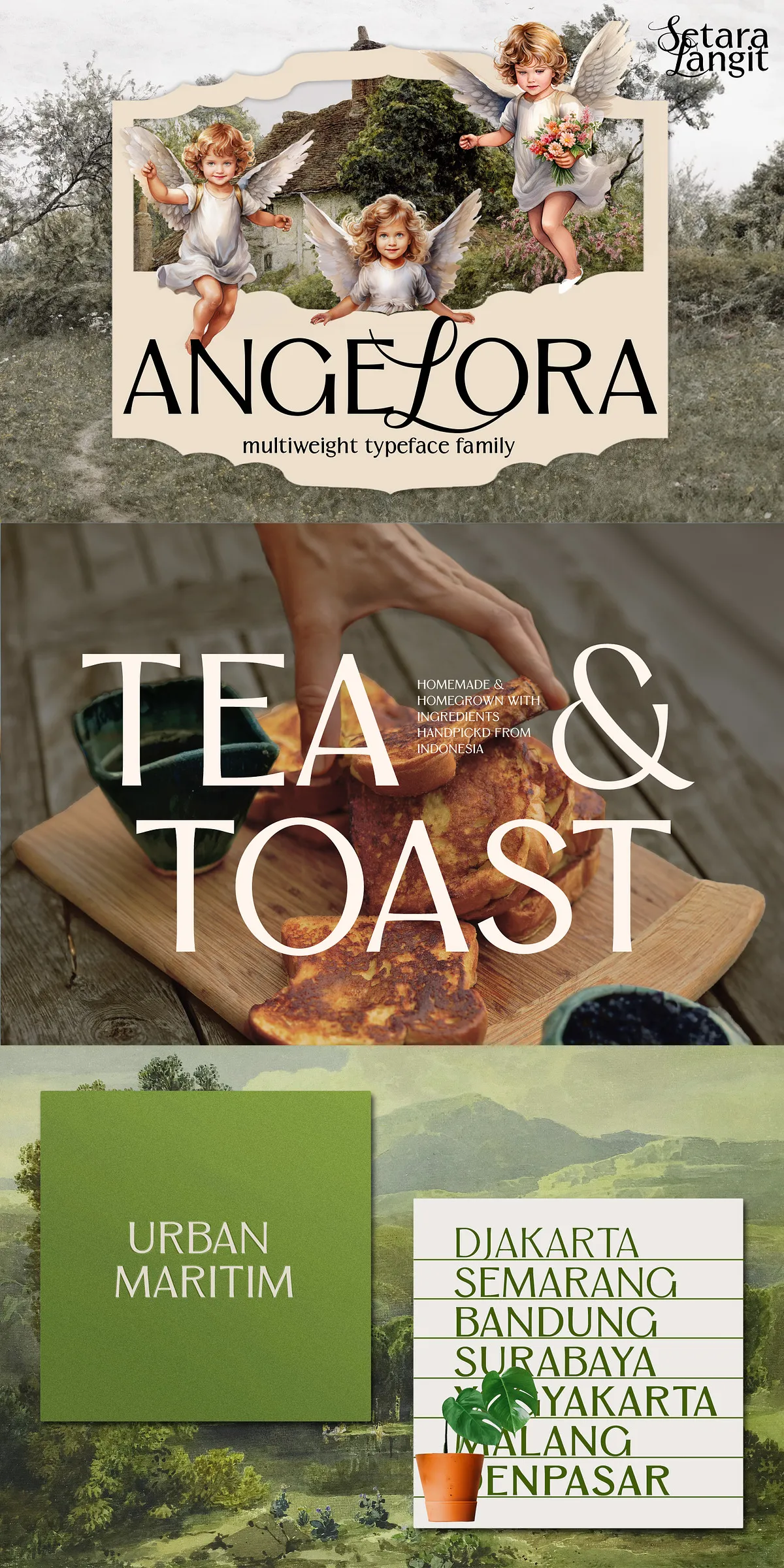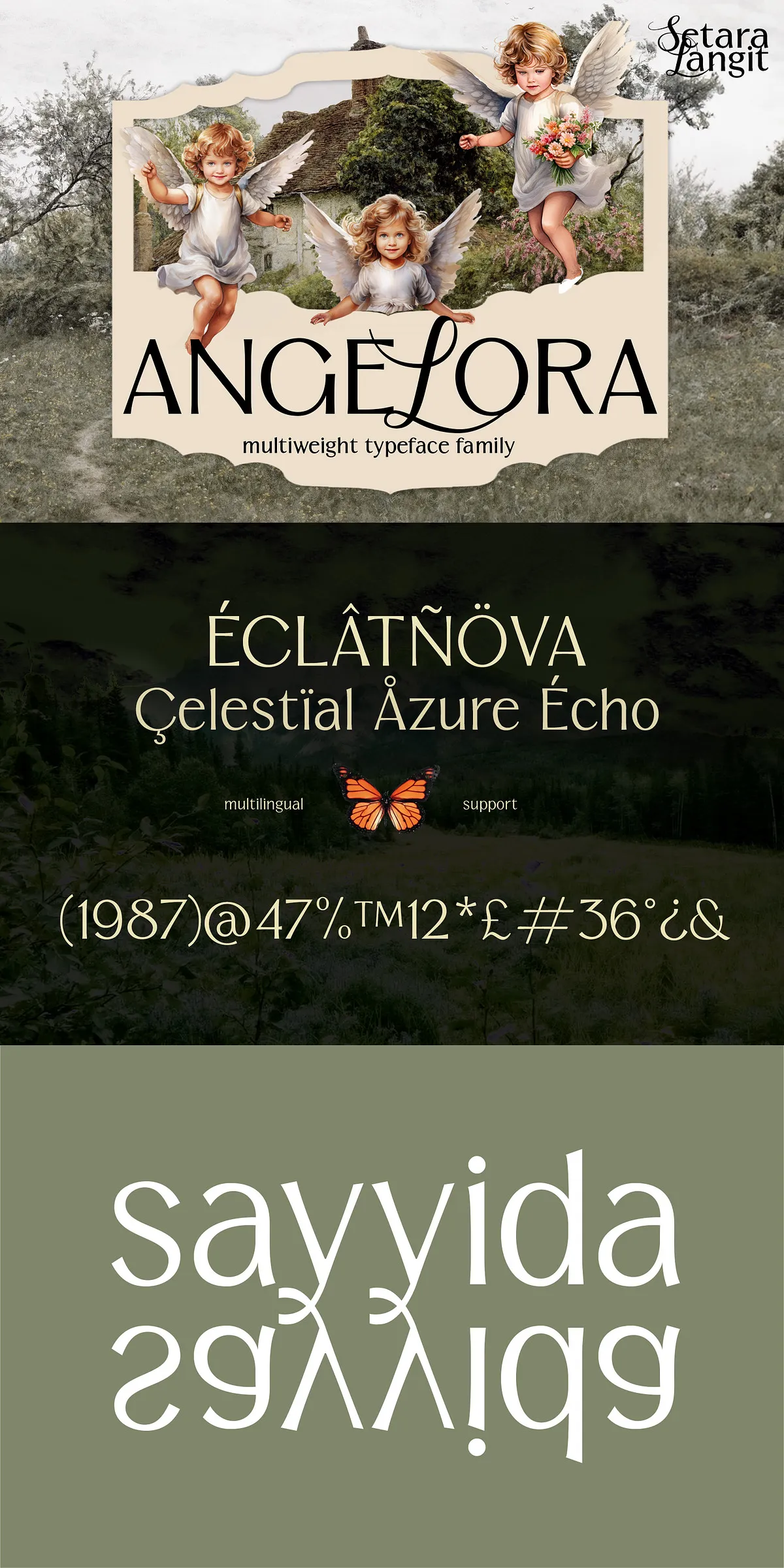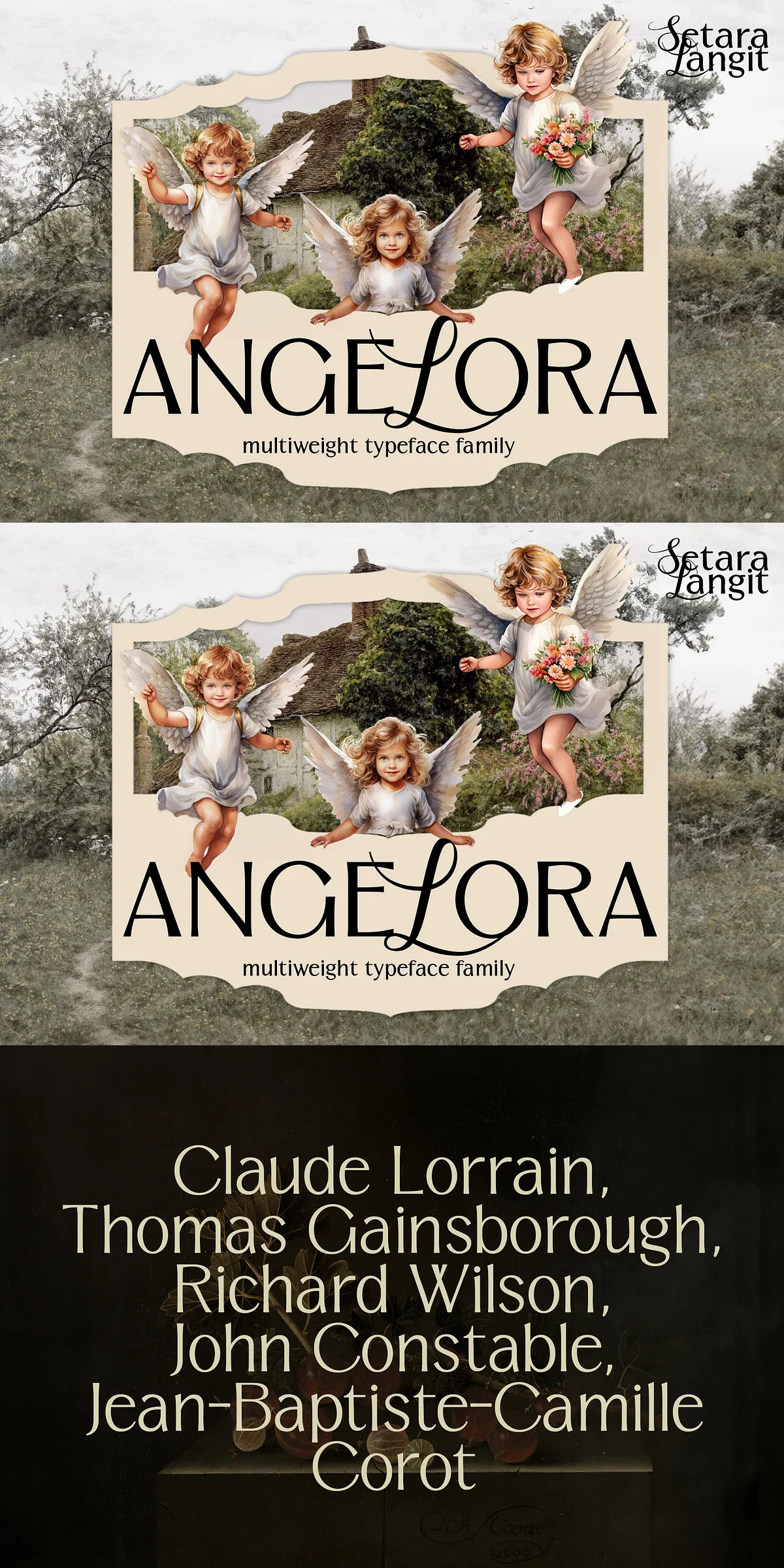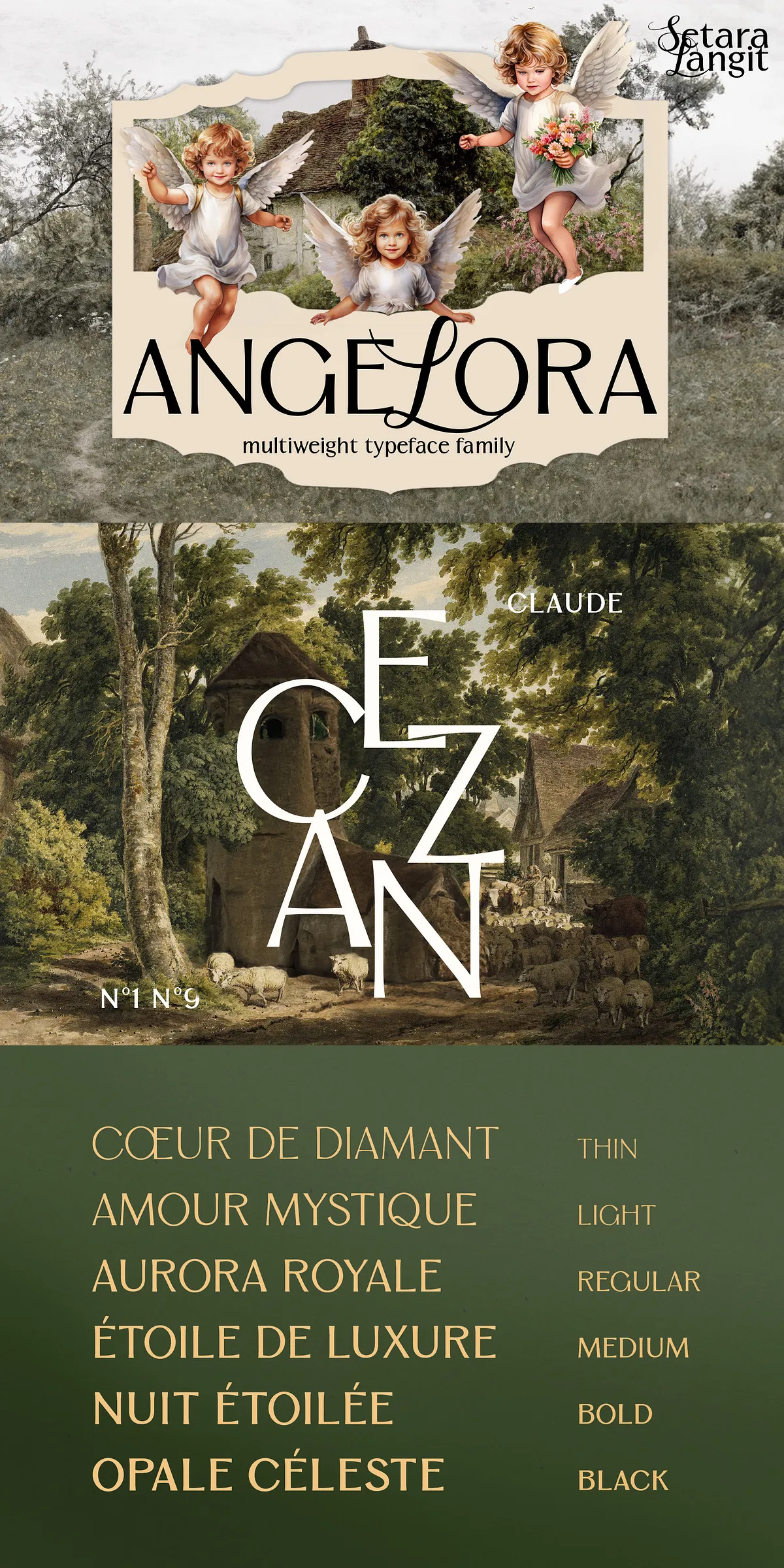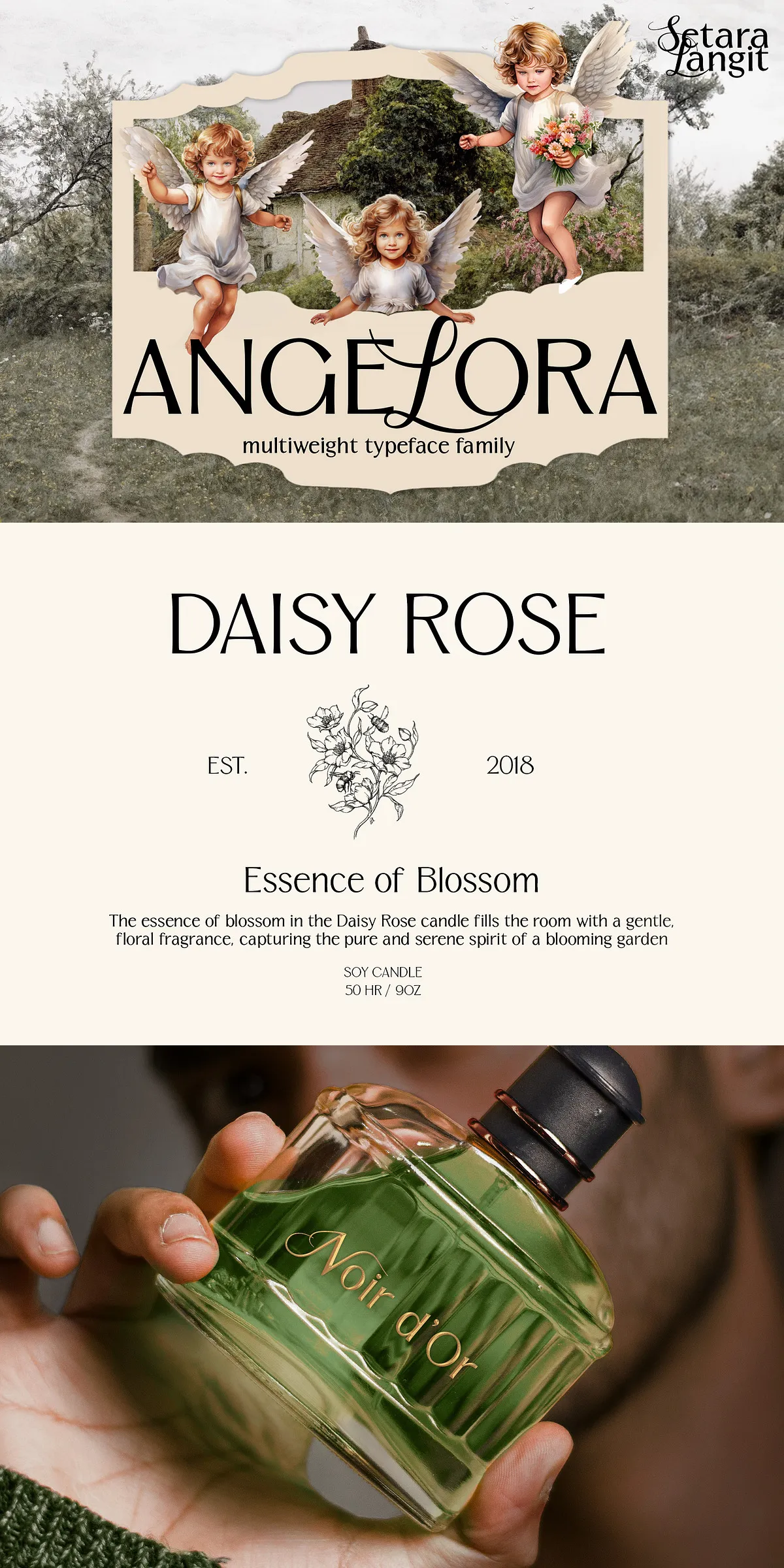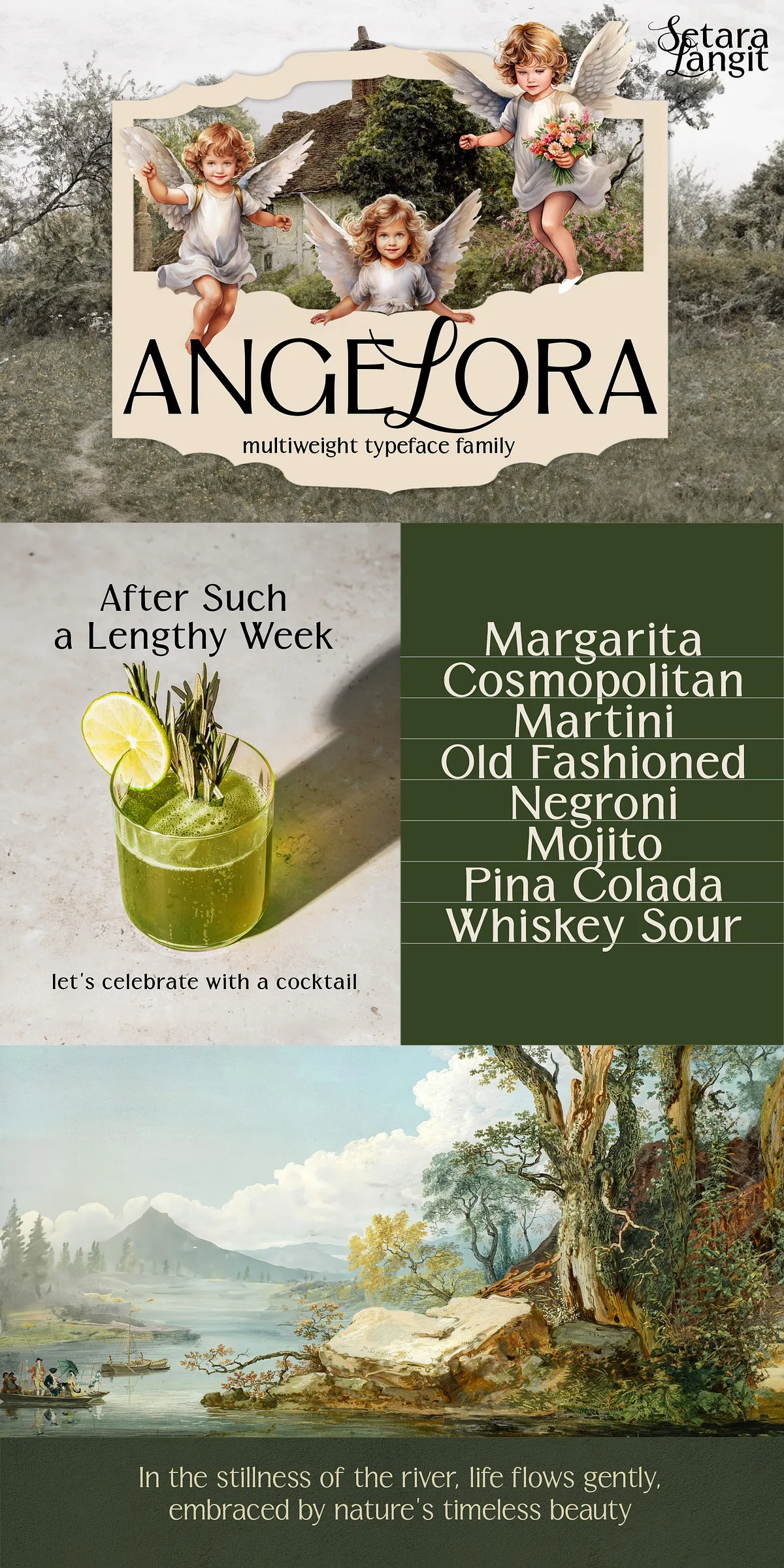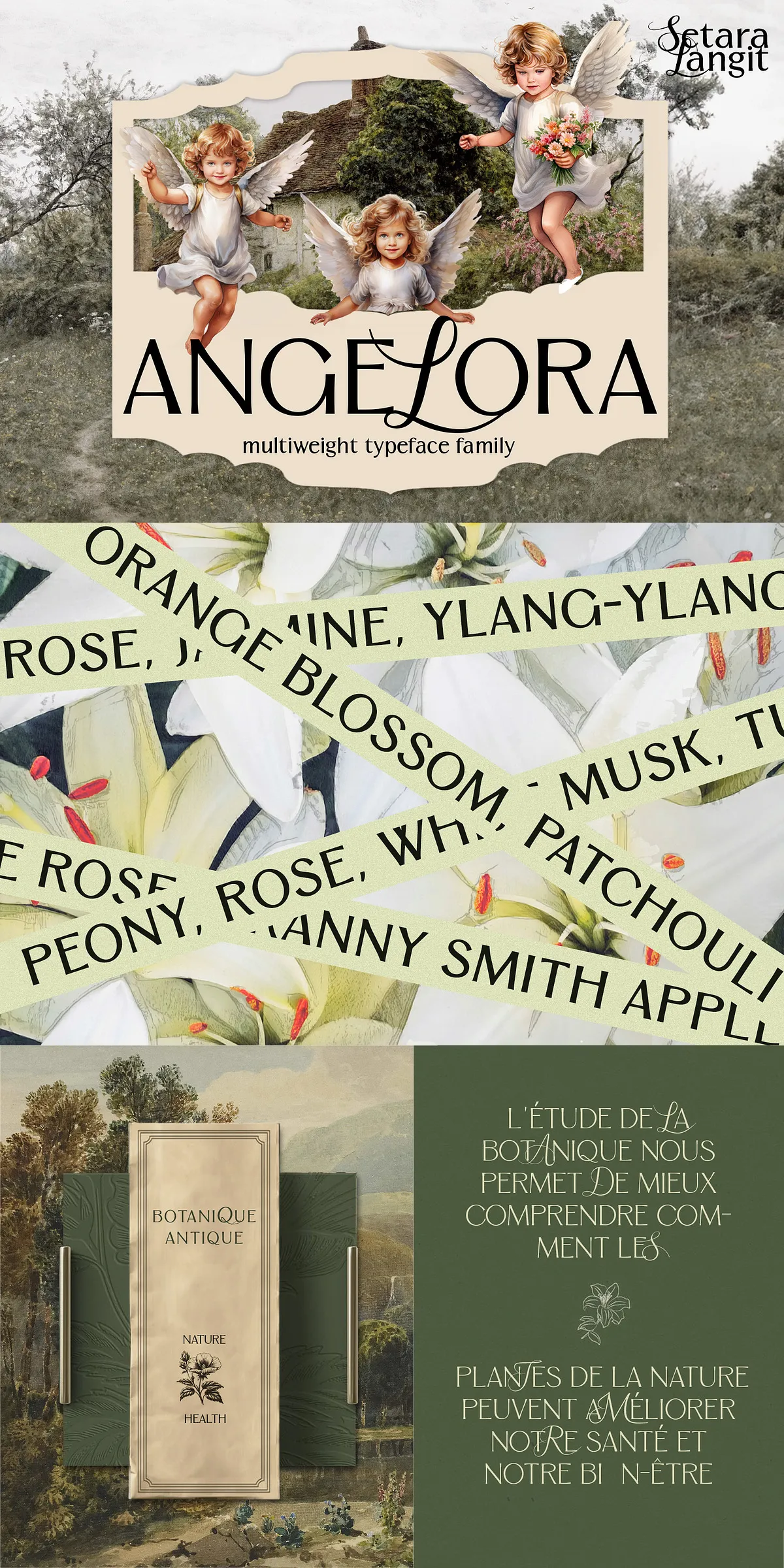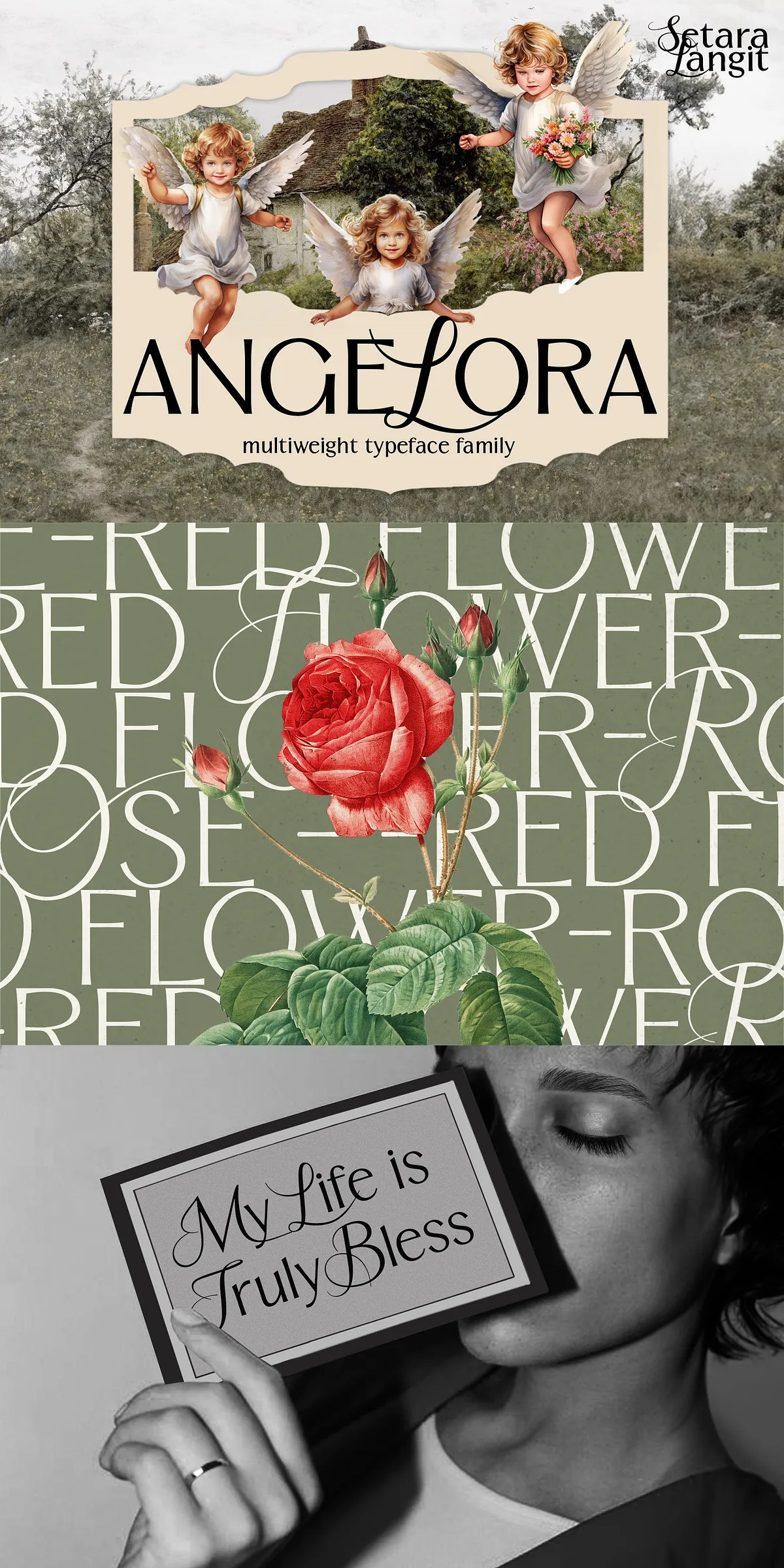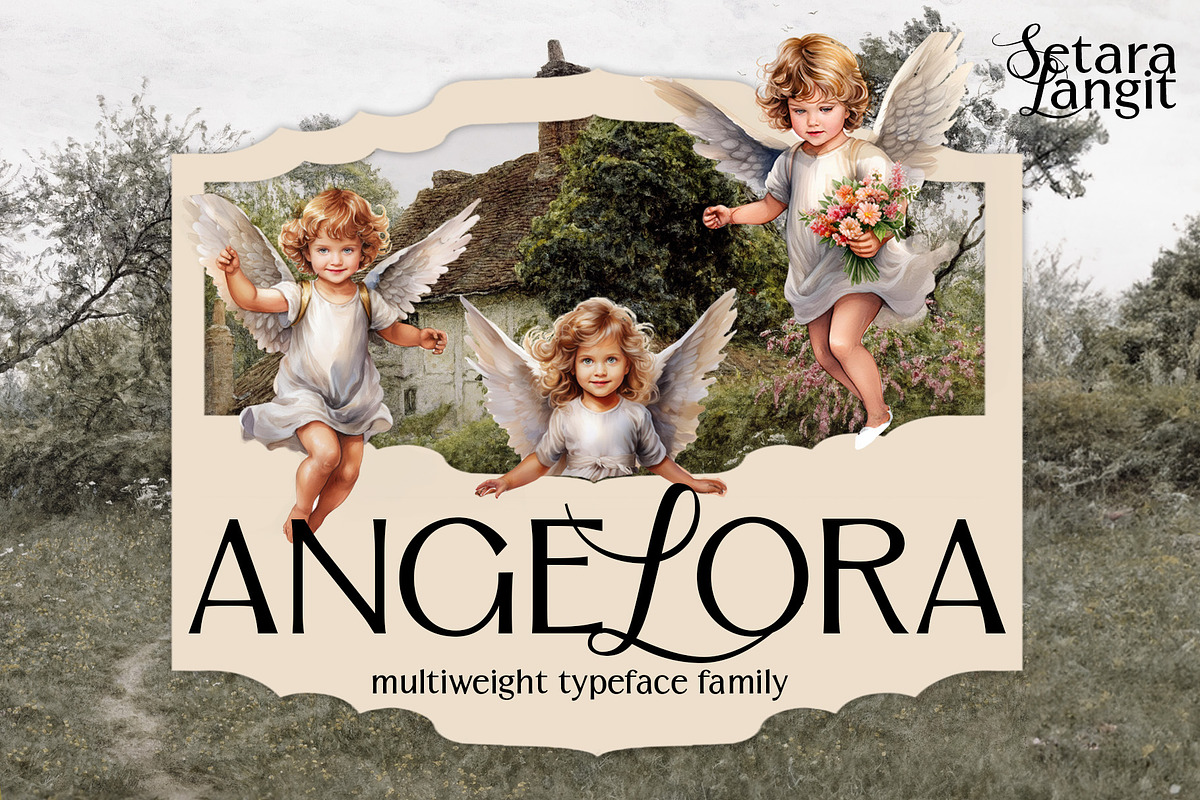
Angelora Typeface
Angelora, crafted masterfully by Setara Langit Creative Studio, represents the pinnacle of sophistication and refined beauty. This typeface is not just a font—it’s an artistic statement that captures the ethereal essence of the heavens, perfecting a seamless balance between celestial grace and modern design. Angelora’s elegant curves and timeless serifs convey luxury and poise, making it an ideal choice for projects that demand both aesthetic appeal and impactful presence.
A Unique Blend of Calligraphy and Sans-Serif Precision
Angelora offers a distinctive fusion of fluid, hand-drawn script elegance with the crisp accuracy of a modern sans-serif typeface. This harmonious combination results in a font that is both timeless and contemporary, versatile enough to enhance a vast range of creative projects. The sophisticated structure of Angelora lets your text breathe with subtlety, while its clean lines add a polished, professional edge.
Perfect for High-End and Luxurious Projects
Whether you are designing the pages of a prestigious fashion magazine, crafting unforgettable wedding invitations, or developing the branding for luxury products, Angelora promises to elevate your visual identity. Its range of weights offers designers ample flexibility to create contrast and hierarchy with ease, ensuring that your message is emphasized and resonates emotionally with your audience.
Design Flexibility That Empowers Creativity
Angelora’s expansive multi-weight family allows you to shape your design’s voice with precision. From delicate light strokes to striking bold weights, this typeface adapts seamlessly to various applications and styles. Its flowing curves and graceful serifs enchant readers while maintaining legibility and professionalism, allowing your creativity to soar without constraints.
Features That Set Angelora Apart
• Multi-Weight Family: Offers a versatile range to enhance design hierarchy and emphasis.
• Combination of Styles: Integrates the charm of calligraphy with the clarity of sans-serif typography.
• Timeless Sophistication: Ideal for luxury, editorial, branding, and invitation design.
• Refined Curves and Serifs: Elicit a feeling of elegance and celestial beauty in every letter.
• Modern Usability: Designed to perform beautifully across print and digital media.
Bring Your Designs to Life with Angelora
Angelora is more than just a typeface; it’s a creative partner that transforms your design vision into reality. Its luxurious style combined with modern versatility makes it ideal for anyone aiming to craft projects with a high impact, whether for fashion, luxury branding, or special occasions. Embrace the celestial elegance and let Angelora inspire you to create with passion and confidence.